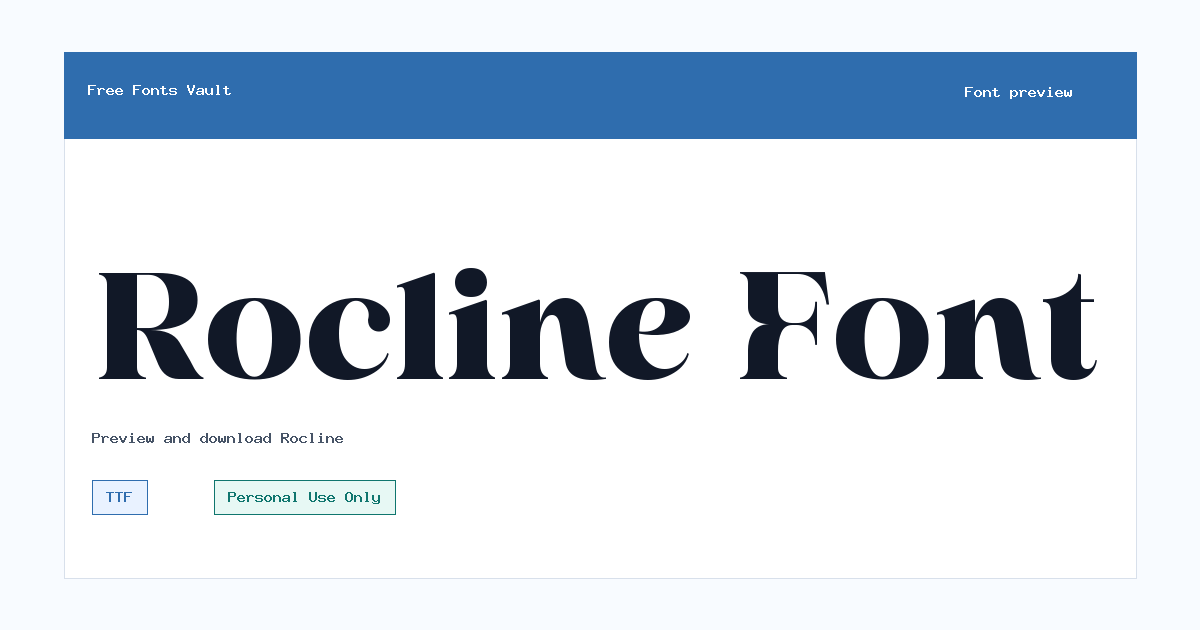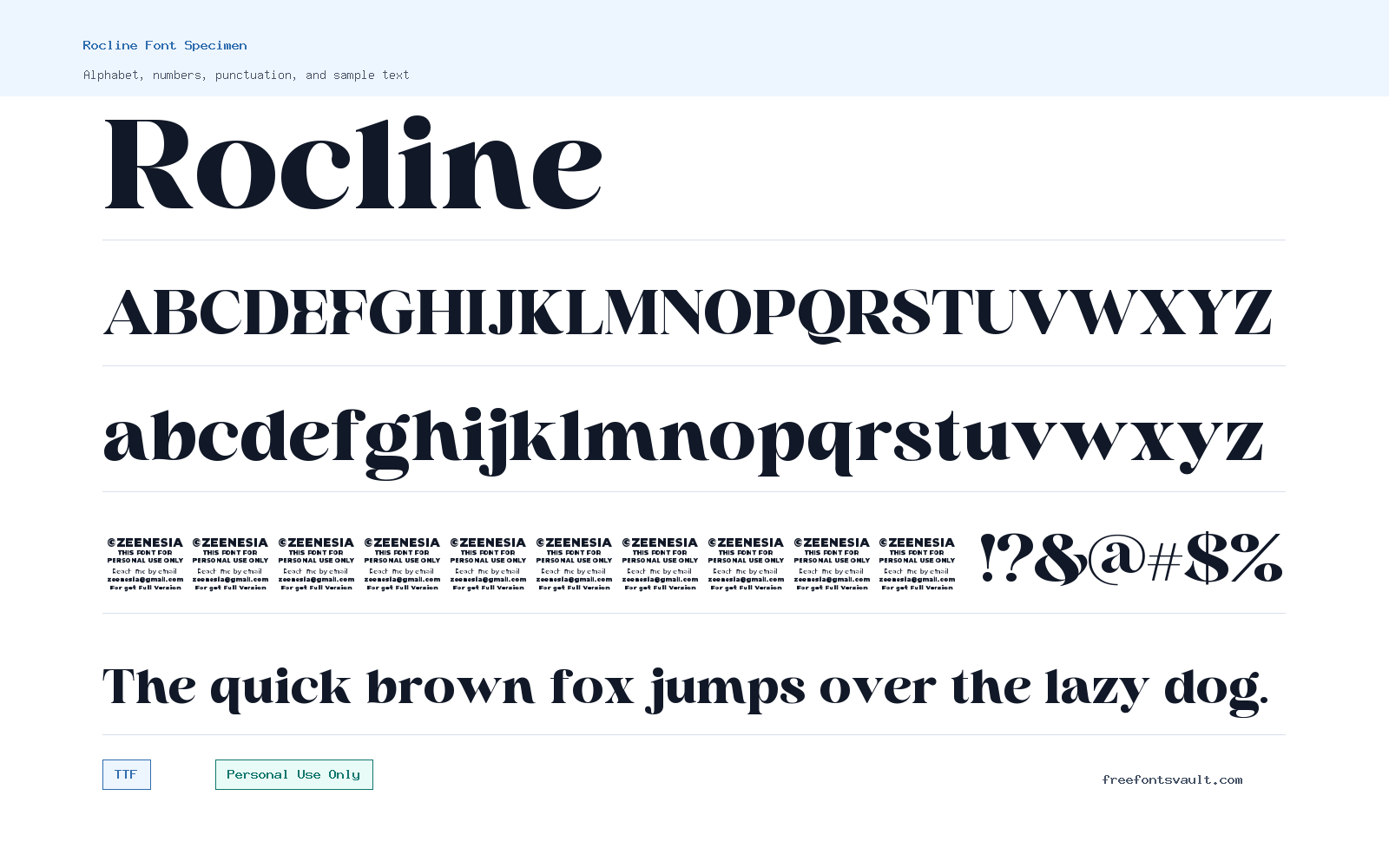
Rocline
Rocline is a serif font family with a Regular TTF file for personal-use design work. It is a useful choice to preview when you need a serif voice for titles, display text, branding drafts, poster layouts, or web mockups, while keeping the license limit in mind.
Rocline is presented as a serif font and is credited to Doni Purwoko. The downloadable file is a TrueType font in a regular style with normal weight, so it is best tested first in headings, short lines, and design compositions where one clear serif style is enough. Because only one regular variant is listed, it should not be treated like a full editorial family with matching bold, italic, or extended weights. For page layouts, brand drafts, and social graphics, try it in the preview with the exact words you plan to use. A serif can change character quickly depending on letter spacing, capitalization, and size, so testing real text is more useful than judging it from a name alone.
For designers, Rocline can be a practical starting point for personal logo concepts, mood boards, invitations, poster titles, cover mockups, and typography studies. Use it where a single serif style can carry the message without needing a large weight range. In logo work, check short names in uppercase and lowercase, then look closely at spacing around letters such as R, o, c, l, and e. For posters and thumbnails, preview the font at the final display size rather than only at large preview scale. For web mockups, use it as a visual placeholder only unless you have the correct license for the final use. If you need body text, long paragraphs, or a full publication system, compare Rocline with a more complete text family that includes bold, italic, and multiple weights.
- Serif font style suitable for testing in titles, logo drafts, posters, and other short-text layouts.
- Single listed variant, which keeps testing simple but limits typographic hierarchy.
- Personal logo concepts and branding sketches
- Poster titles, cover designs, and display headlines
- Invitation drafts, mood boards, and typography practice
- Short social graphics, quote images, and presentation title slides
Start by previewing Rocline with the exact wording of your project. For logos, test both all-caps and title case, then adjust tracking carefully because serif letterforms can feel crowded when used in tight marks. For posters and thumbnails, keep the text short and give the letters enough space to remain readable. For font pairing, combine Rocline with a simple sans serif for captions, navigation, or body copy so the serif can stay focused on the main title. Avoid relying on it alone for long-form layouts unless you are comfortable with a single regular weight and no listed italic or bold companion.
Is Rocline good for body text?
It is better to test it first in short text and display settings. Since only a regular variant is listed, long documents may need a fuller font family with bold, italic, and multiple weights.
What should I pair with Rocline?
Pair it with a clean sans serif for body text, menus, captions, or supporting details. This keeps the serif style visible in headings while improving readability in smaller text.